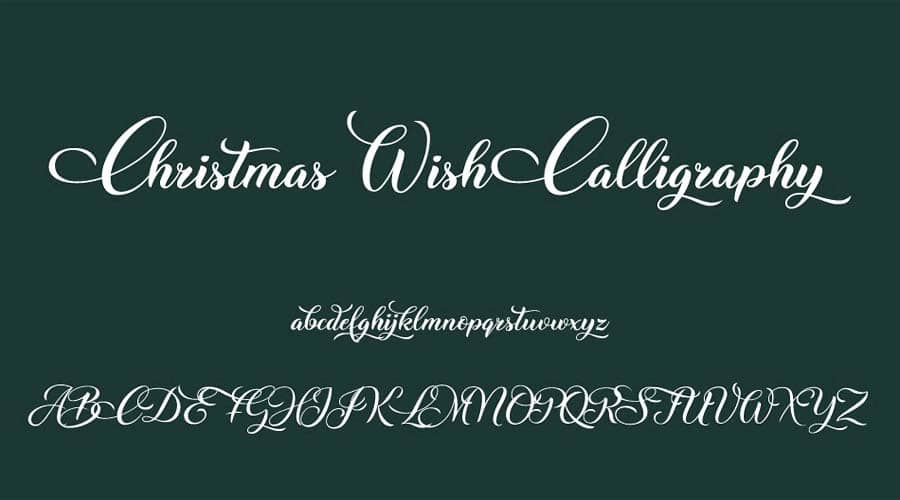
Christmas Wish Calligraphy Font
Christmas Wish Calligraphy Font is the most recent Script and Calligraphy font, designed and published on December 23, 2018, by Roland Huse Design.
Christmas Wish Calligraphy Font is a Cyrillic calligraphy-style script font. The font is available in two weights: monoline and calligraphic. The font includes Western European accented characters and stylistic alternates for the letters “s” and “h,” as well as standard ligatures for double letters ll tt. The designer continues to work on enlargement with additional swashes and ligatures, and updates may be forthcoming. The font appears to be readily accessible in both TrueType and OpenType file types. This typeface is offered for Microsoft, Mac OS X, Firefox, Cricut, Silhouette, and other computer chips. Converting fonts such Christmas Wish to web fonts is effortless.
Christmas Wish Calligraphy Font is designed primarily for writing Christmas greetings. The font is commonly used in the creation of Christmas cards and banners.